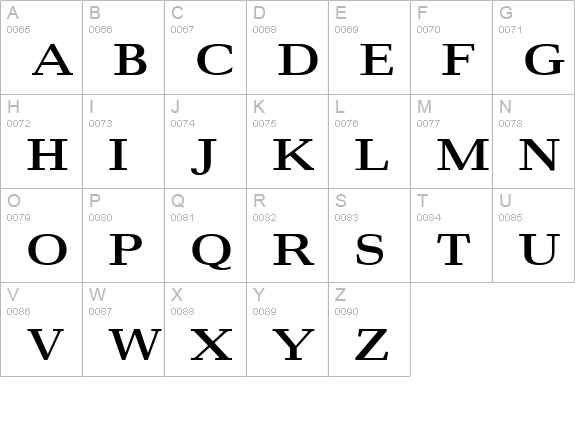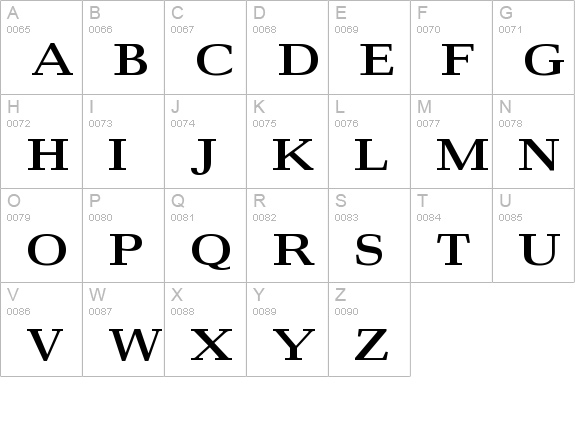
Ingenio SSi Font Details
Introducing Ingenio SSi, a versatile and modern font that is perfect for a wide range of design projects. This font combines sleek lines with a touch of elegance, making it suitable for both professional and creative endeavors. Ingenio SSi is designed to captivate and engage your audience with its unique and eye-catching appeal. Its carefully crafted letterforms exude a sense of sophistication, while maintaining readability and clarity. Whether you're designing a logo, creating a flyer, or crafting a website, this font will effortlessly elevate your work to new heights. What sets Ingenio SSi apart is not only its exceptional design, but also its accessibility. This font is freely available to download at FontsMarket.com, allowing designers of all backgrounds and budgets to enjoy its premium quality without any constraints. With Ingenio SSi, you no longer have to compromise on style or break the bank to achieve professional-looking results. The versatility of Ingenio SSi is further enhanced by its extensive character set, which includes a variety of alternate glyphs and ligatures. This allows you to experiment and create unique typographic compositions that truly stand out. Additionally, the font supports multiple languages, ensuring that you can communicate your message effectively across different cultures and regions. Ingenio SSi is designed with meticulous attention to detail, ensuring that each letter, number, and symbol is harmoniously balanced. Its clean and crisp appearance makes it ideal for both digital and print applications. Whether you're designing for a small screen or a large poster, this font will retain its visual impact and legibility, ensuring that your message is delivered with precision. Embrace the freedom of expression and creativity with Ingenio SSi. Download this remarkable font for free at FontsMarket.com and unlock a world of possibilities for your design projects. Experience the seamless blending of style and functionality, and elevate your designs to new levels of excellence with Ingenio SSi.